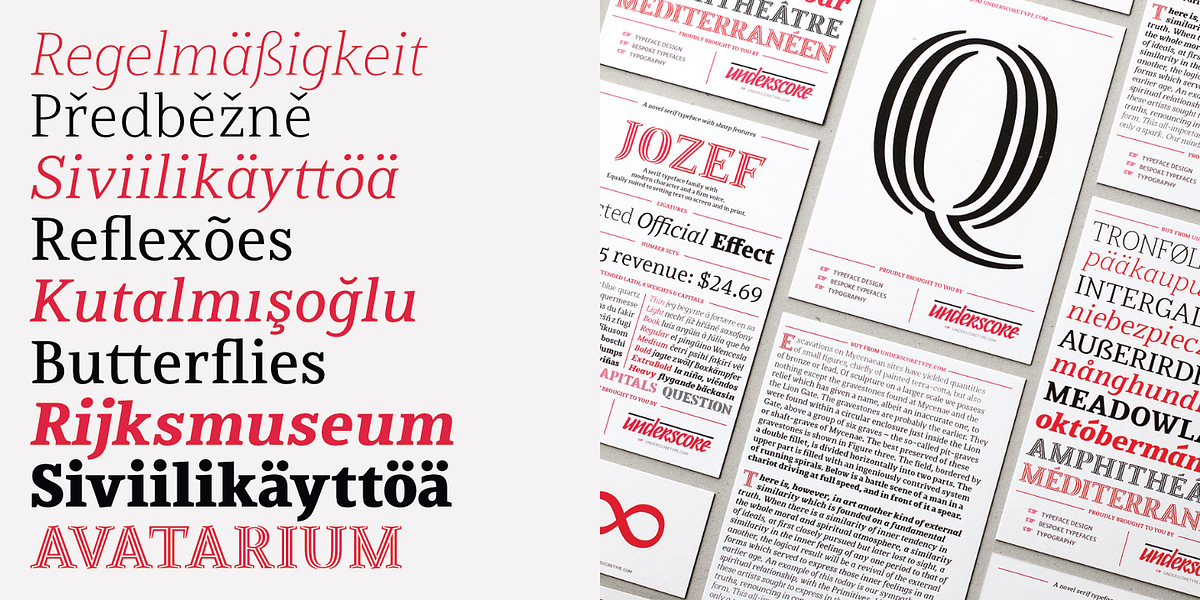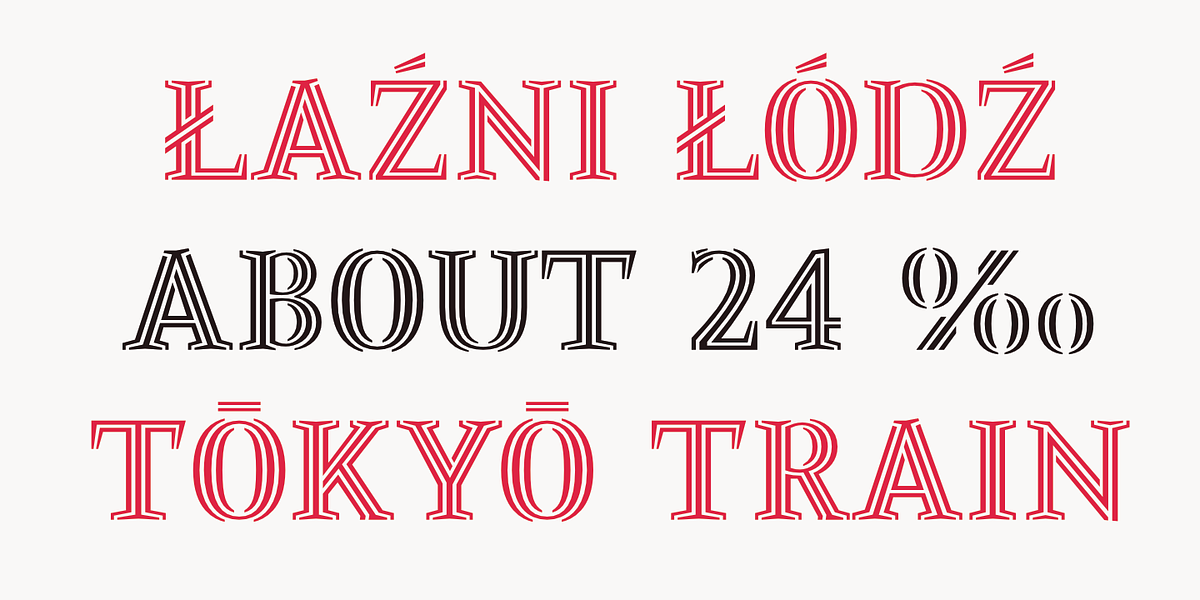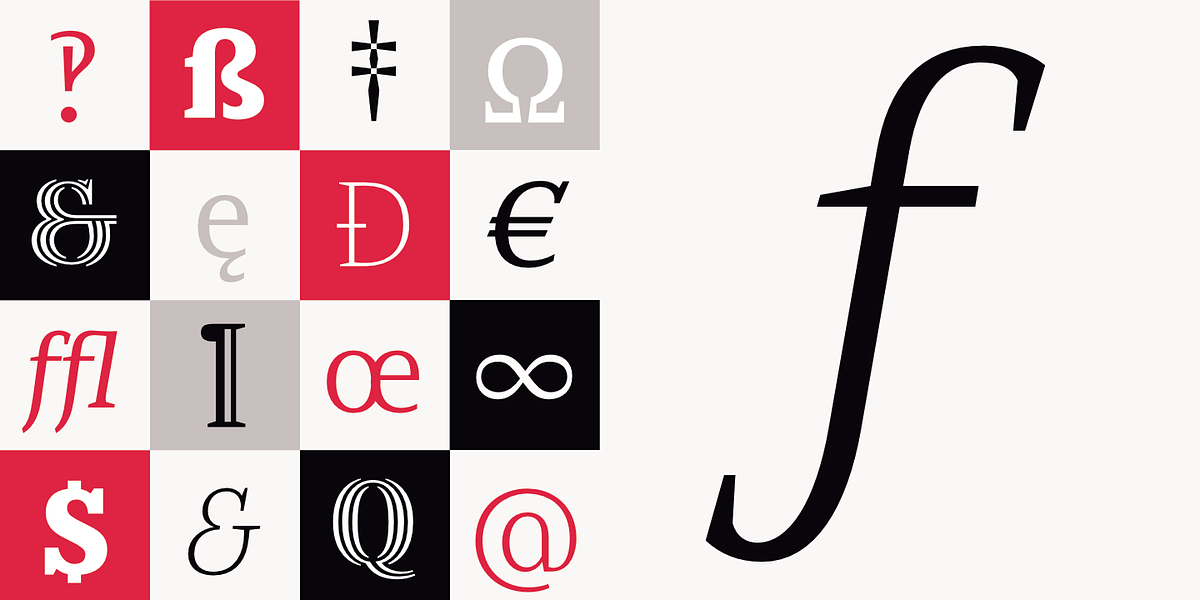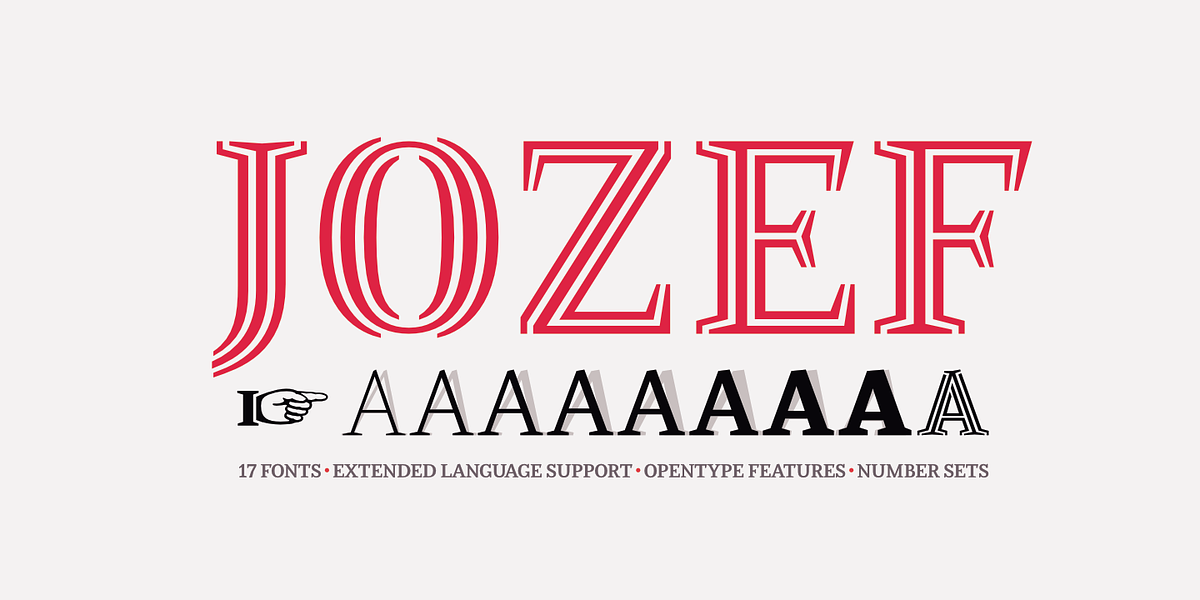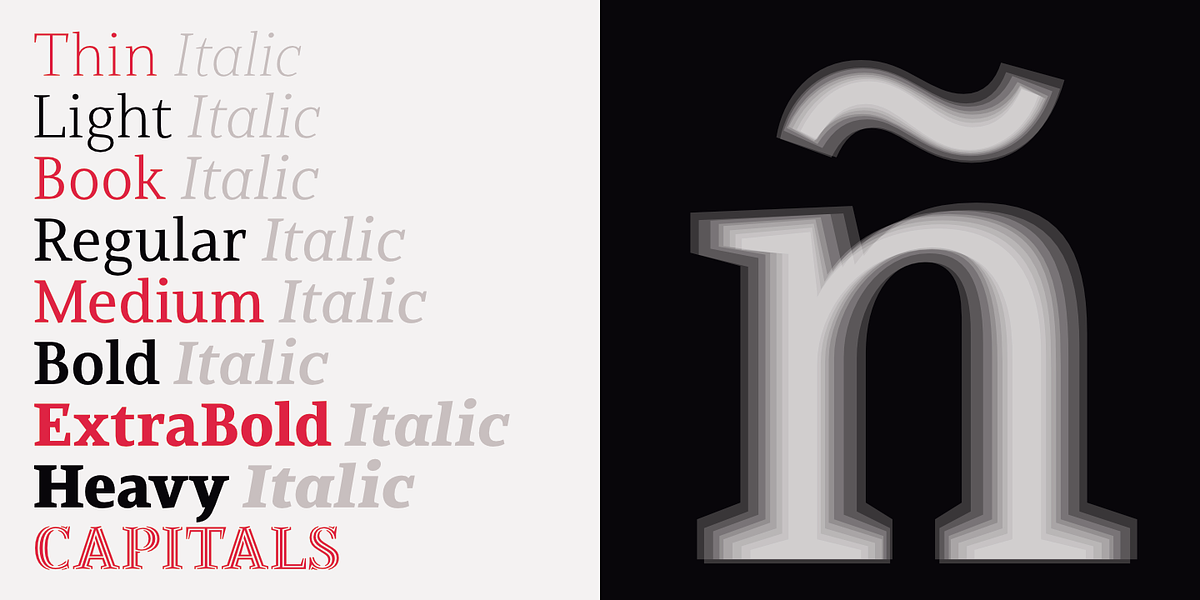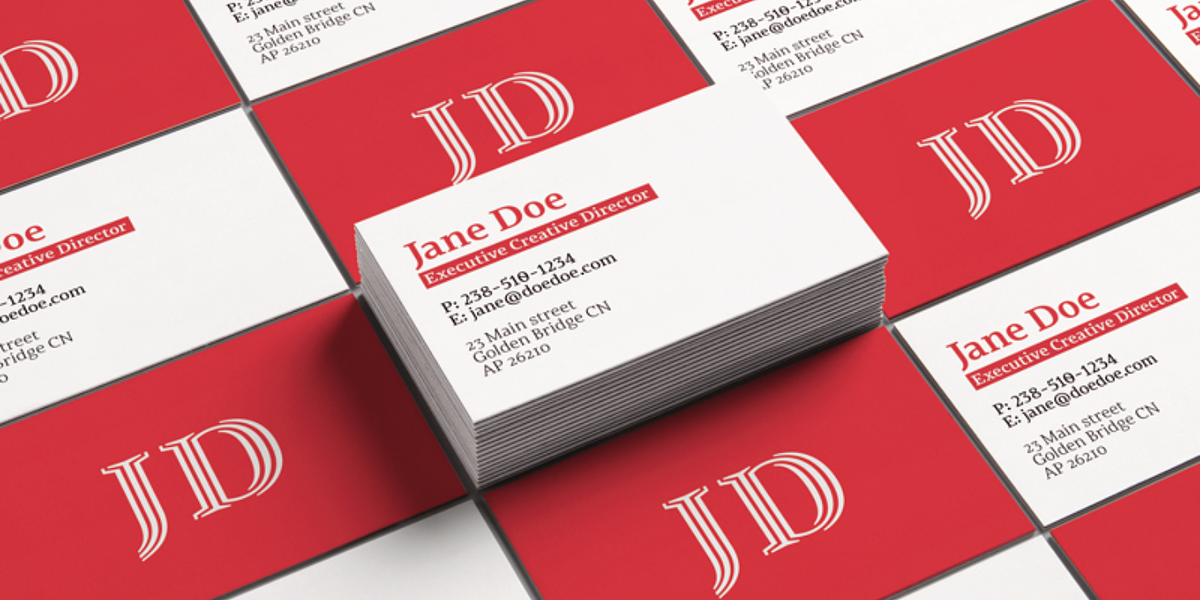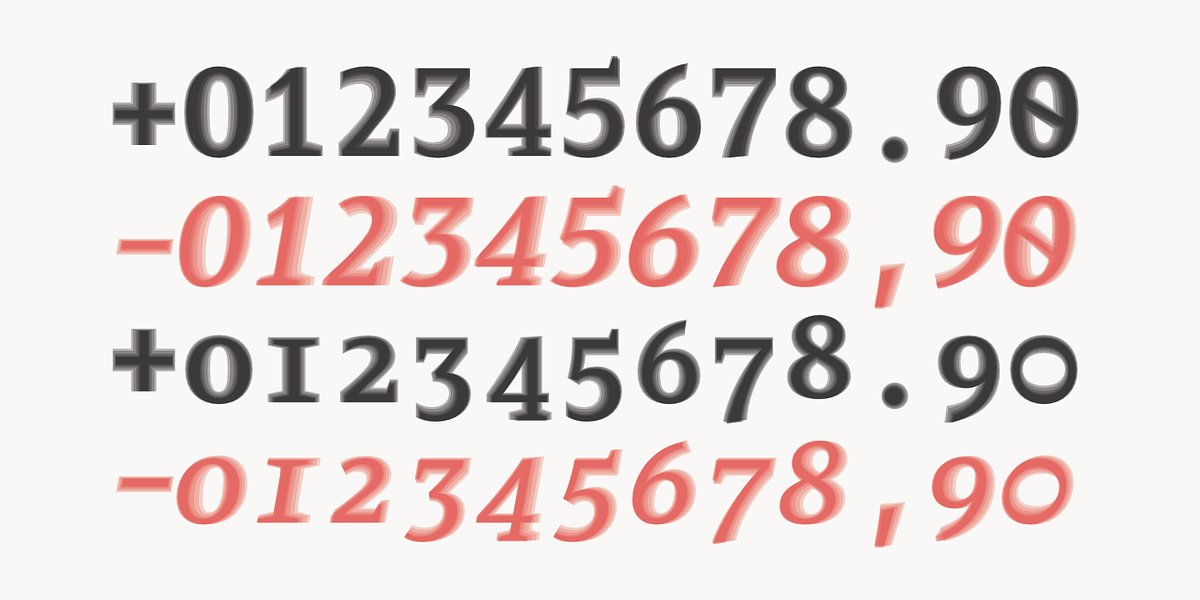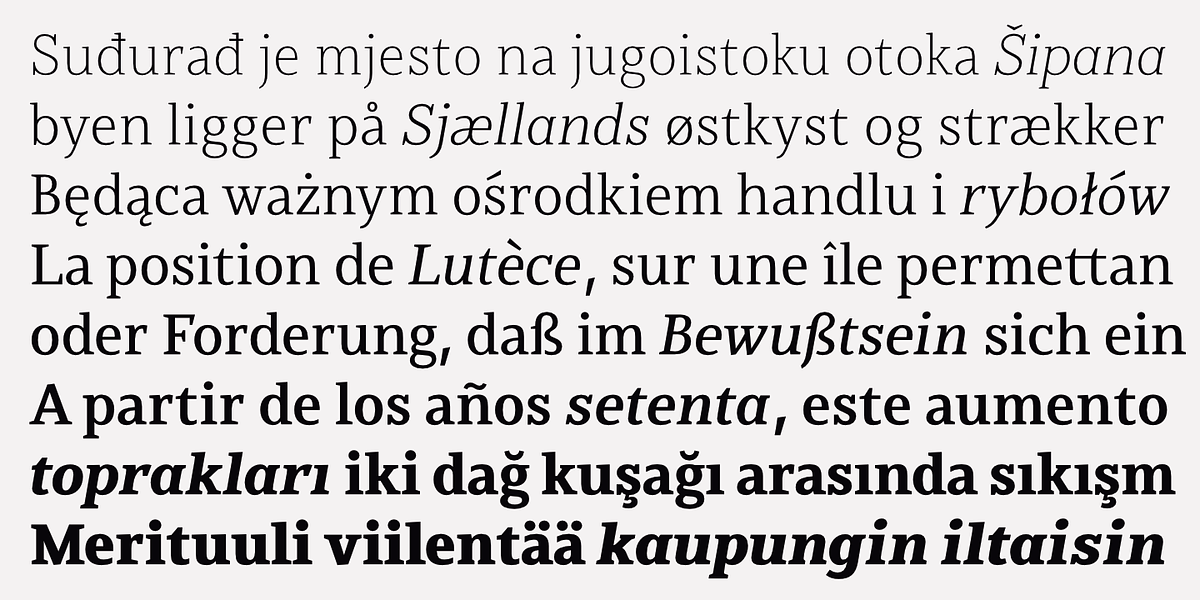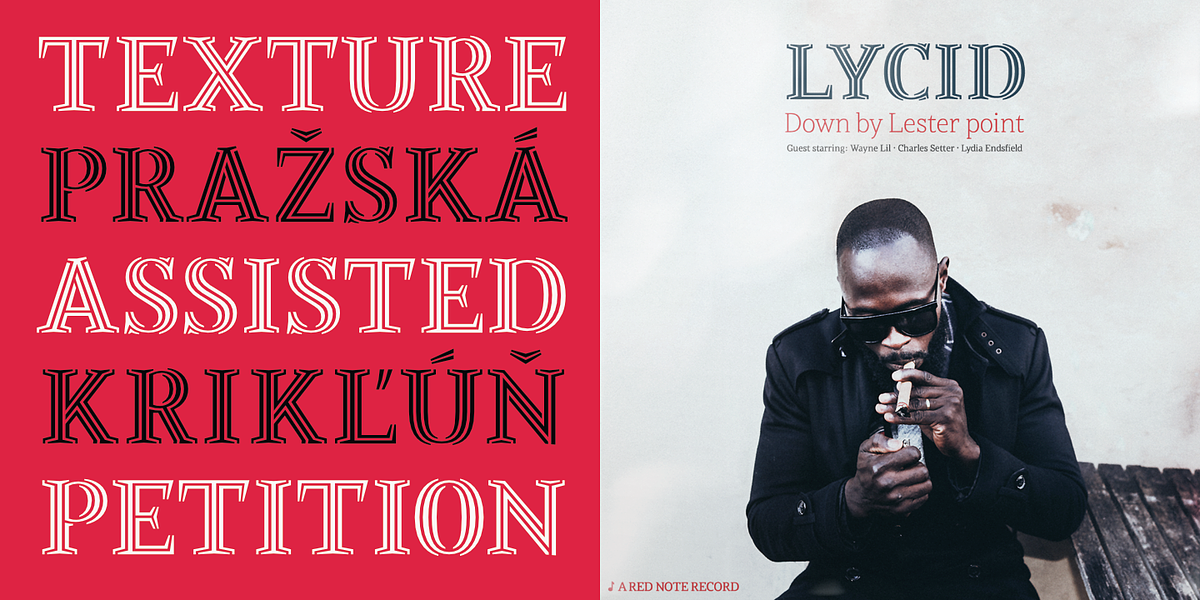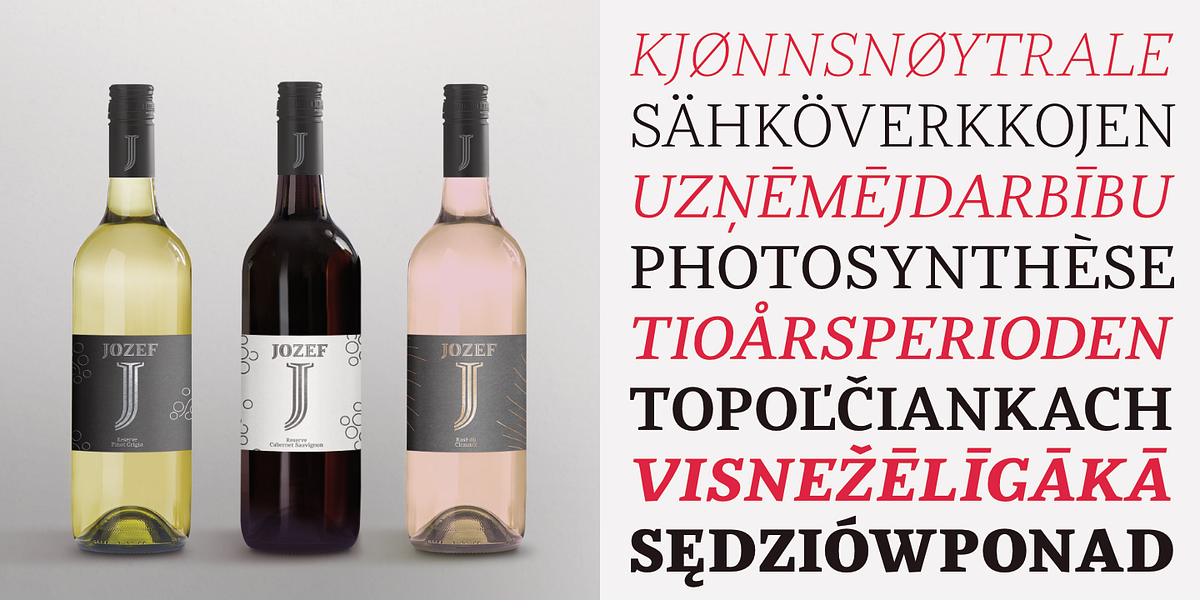
Jozef
Jozef is a modern serif typeface designed by Johannes Neumeier. It is characterized by its sharp serifs which give it a strong and legible appearance. Available in eight weights with matching italics, Jozef is well-suited for both print and screen text setting. The font also includes decorative capitals and supports extended Latin characters.